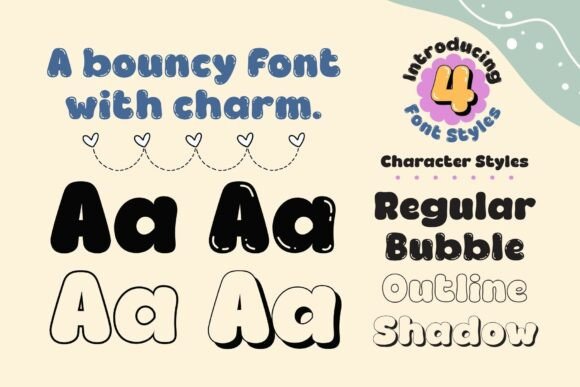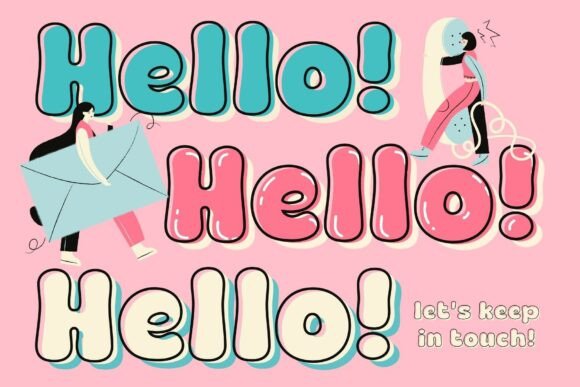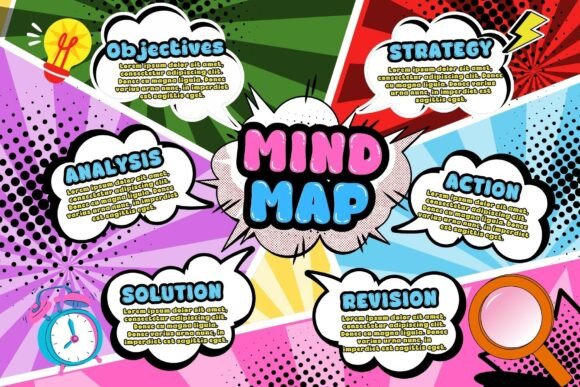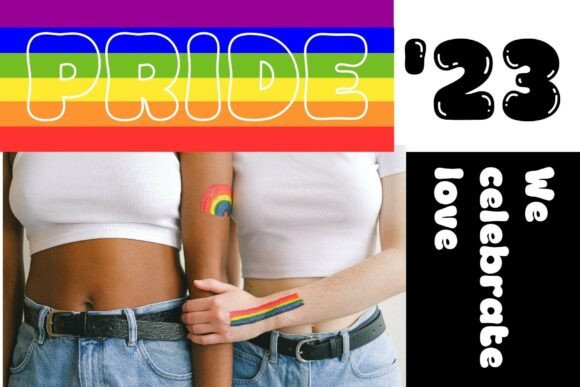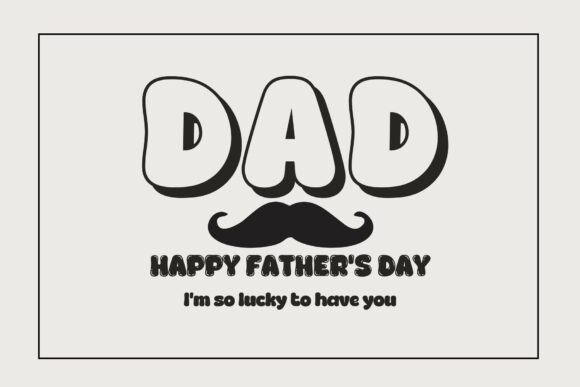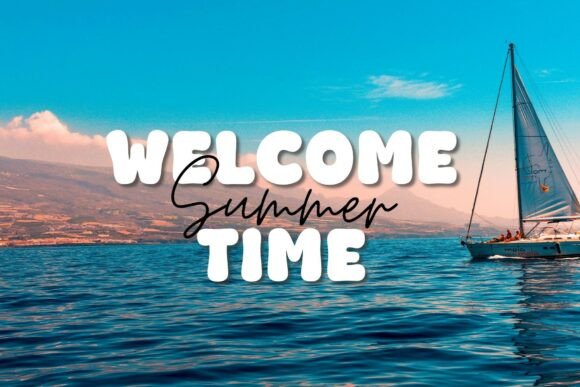
Fox Dippy – A Bouncy Font with Charm (4 Styles)
Are you tired of using the same old fonts for your designs? I know I was. Recently, I was working on a project for a kids’ party invitation, and I just couldn’t find the right font. The client wanted something fun, playful, and bubbly, but not too over-the-top. That’s when I stumbled upon Fox Dippy, a delightful display font that has become my new go-to for adding charm and whimsy to any project.
The Magic of Fox Dippy
Fox Dippy is a fun and bouncy display font that comes with 4 unique styles to mix and match for even more creative freedom:
• ❀ Regular – Clean and bold, with that friendly bounce.
• ❀ Bubble – Glossy and playful with shiny highlights.
• ❀ Outline – Lightweight and cute, perfect for layering.
• ❀ Shadow – Fun and dimensional, adds depth with a soft shadow.
Each style works beautifully on its own or together for layered, colorful effects! ✨
Honest Review
• ✅ The soft curves and quirky rhythm of Fox Dippy make it perfect for kids’ designs, packaging, quotes, invitations, and social media graphics.
• ✅ The 4 unique styles offer endless creative possibilities.
• ✅ The font is easy to read, even in smaller sizes.
• ✨ The bubbly vibe is infectious and adds a touch of playfulness to any design.
While Fox Dippy is an amazing font, there are a few things to keep in mind:
• ⚠️ The font may not be suitable for body text, as it’s designed for display purposes.
• 🤔 Some of the styles, like the Outline and Shadow, may require additional design elements to make them pop.
Fox Dippy was designed with the intention of creating a font that’s both fun and charming. The designer wanted to create a font that would add a touch of playfulness to any design, while still being easy to read. The result is a font that’s perfect for kids’ designs, packaging, quotes, invitations, and social media graphics.
What is Fox Dippy? Fox Dippy is a fun and bouncy display font that comes with 4 unique styles.
What can I use Fox Dippy for? Fox Dippy is perfect for kids’ designs, packaging, quotes, invitations, and social media graphics.
Is Fox Dippy easy to read? Yes, Fox Dippy is easy to read, even in smaller sizes.